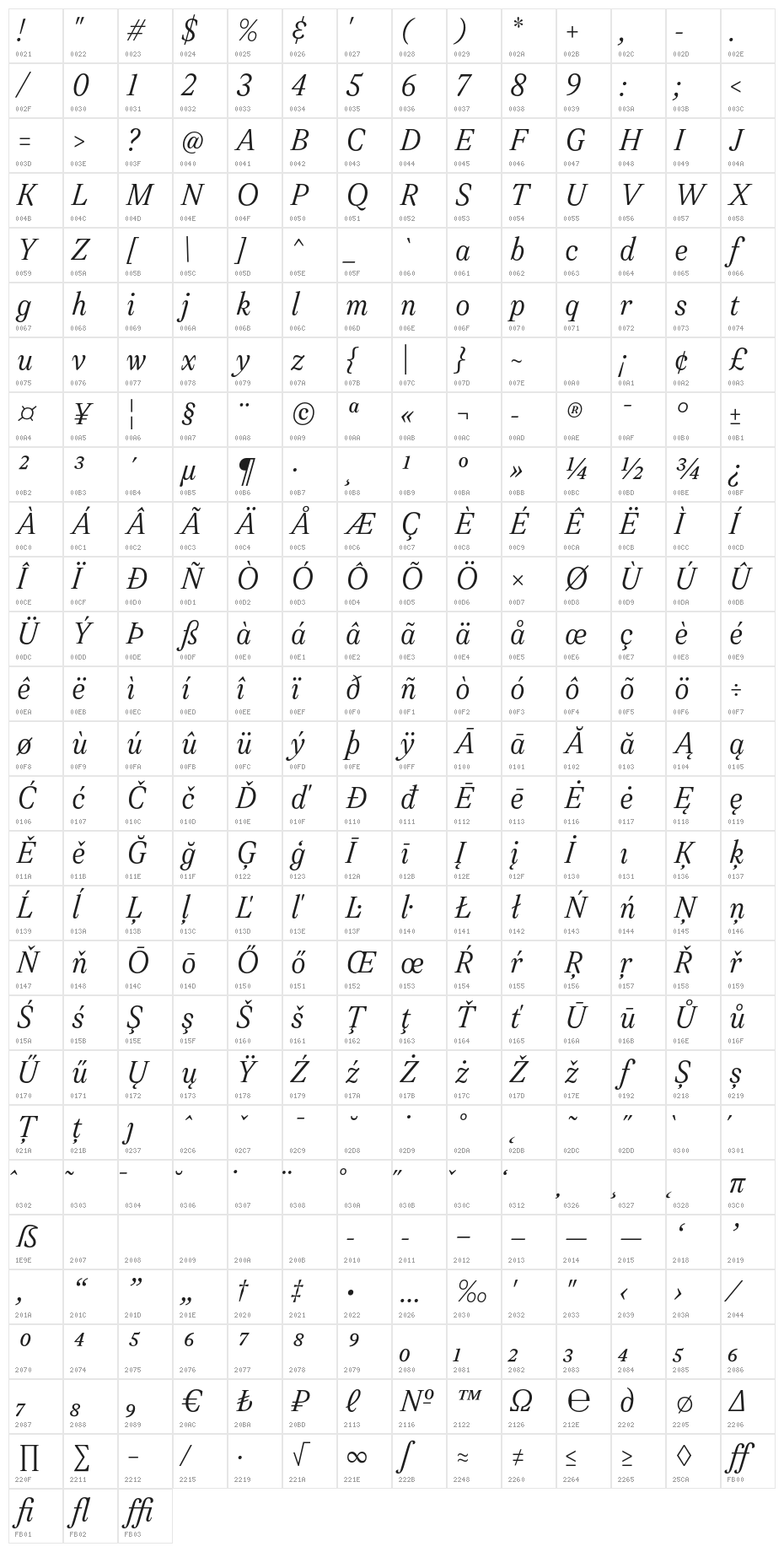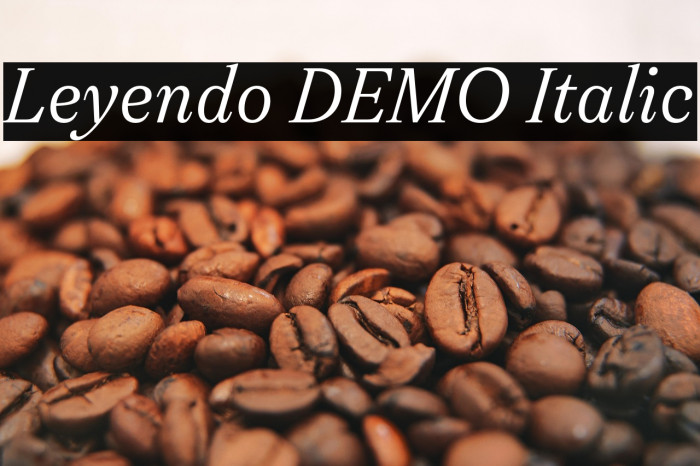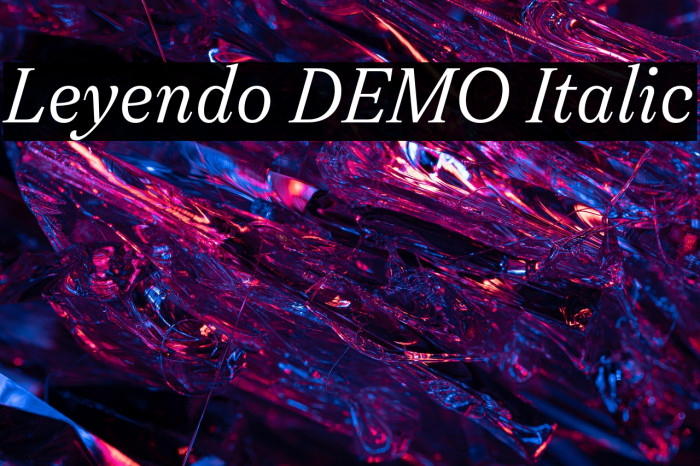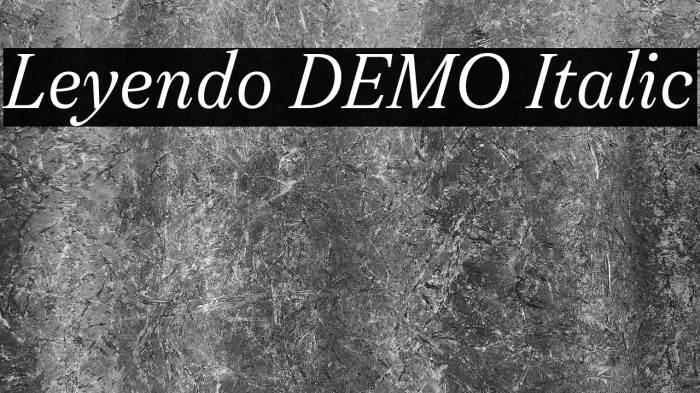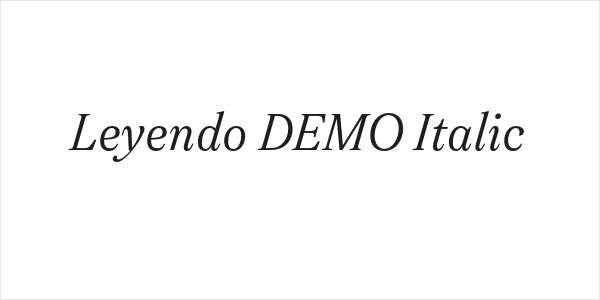
Leyendo DEMO Italic Font
Leyendo DEMO Italic Description
This font exhibits a classic and elegant italic style, characterized by its smooth, flowing lines and moderate contrast between thick and thin strokes. The serifs are refined and slightly curved, adding a touch of sophistication. The overall appearance is graceful, making it suitable for formal and professional applications. The uppercase letters are tall and stately, while the lowercase letters maintain a consistent slant, enhancing readability. Numbers and special characters are designed with the same attention to detail, ensuring a cohesive look across all elements.
Overall StyleClassic
Proposed ProjectsIdeal for wedding invitations, formal event programs, elegant branding, and editorial design.